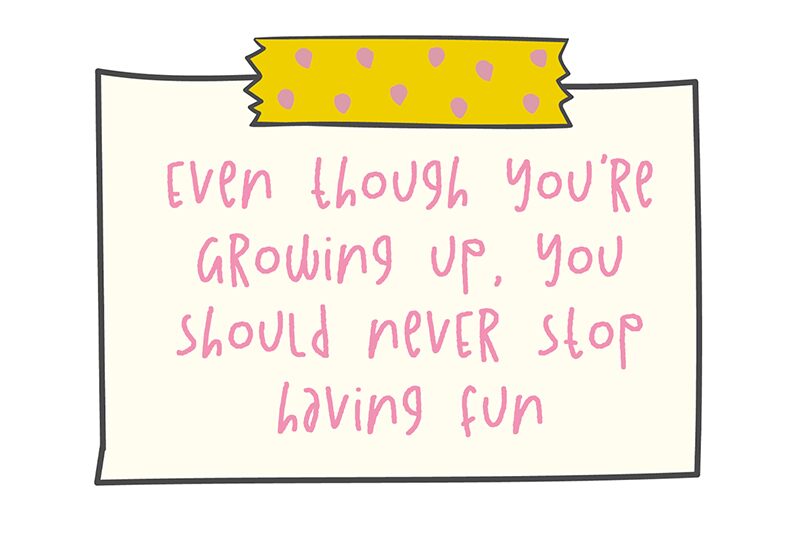
Farmhouse Children
Farmhouse Children is a beautiful handwritten font designed by Abo Daniel. Its unique, light, and condensed style makes it perfect for crafting eye-catching titles, logos and posters. With its charming personality, Farmhouse Children can help your projects stand out with a warm and inviting feel. It's an excellent choice for invitations, greeting cards and other creative projects that require a personal touch.
This font is designed for crafters
It is great for branding, packaging, quotes, t-shirt design, card, banner, and anything of craft project that needs kids style.
The combination of uppercase and lowercase is great, unique and very fun